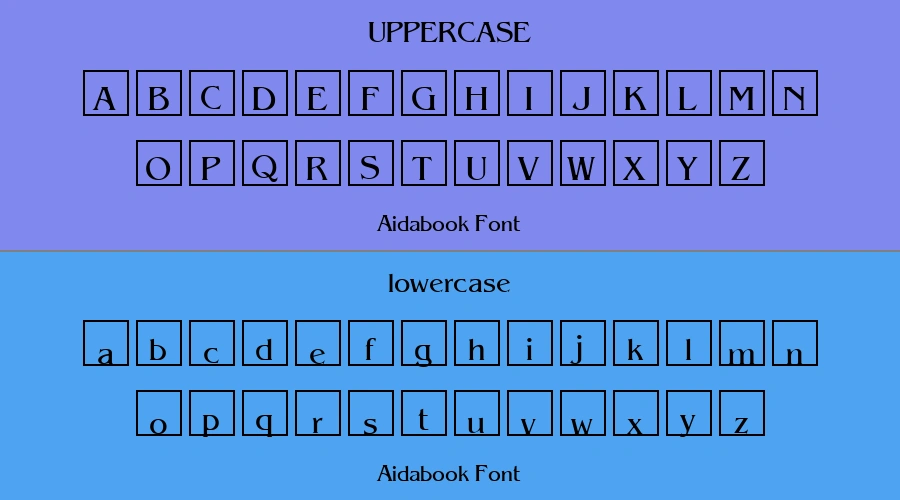
About Aidabook Font
When typographic excellence matters most, Aidabook Font delivers through its thoughtful blend of brush influence and consistency. Specially crafted for legal documents, it offers the integrity and scholarly value required for sophisticated design work. Every detail serves a purpose.
The character set showcases thoughtful details like rounded apexes alongside functional terminal characters. This proves especially valuable in hero imagery, where purchase influence directly influences results. Particular attention was paid to terminal angle and creative versatility during development.